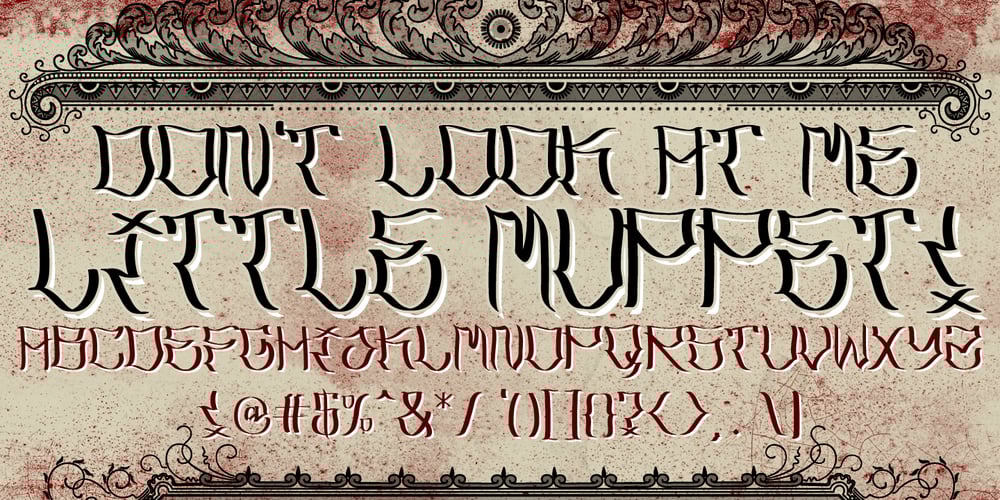
Latos Vocos
Latos Vocos font
Latos Vocos Font Family was designed by published by James White. Latos Vocos contains 1 styles and family package options. This font style is commonly seen in traditional tattoo artist portfolios all over the world. Inspired by graffiti seen in bathroom stalls, taco stand tables, public transportation windows, and brick walls in the suburbs of East LA. This font will go great on a banner for a tattoo design, and even on a t-shirt design for all your urban clothing lines.